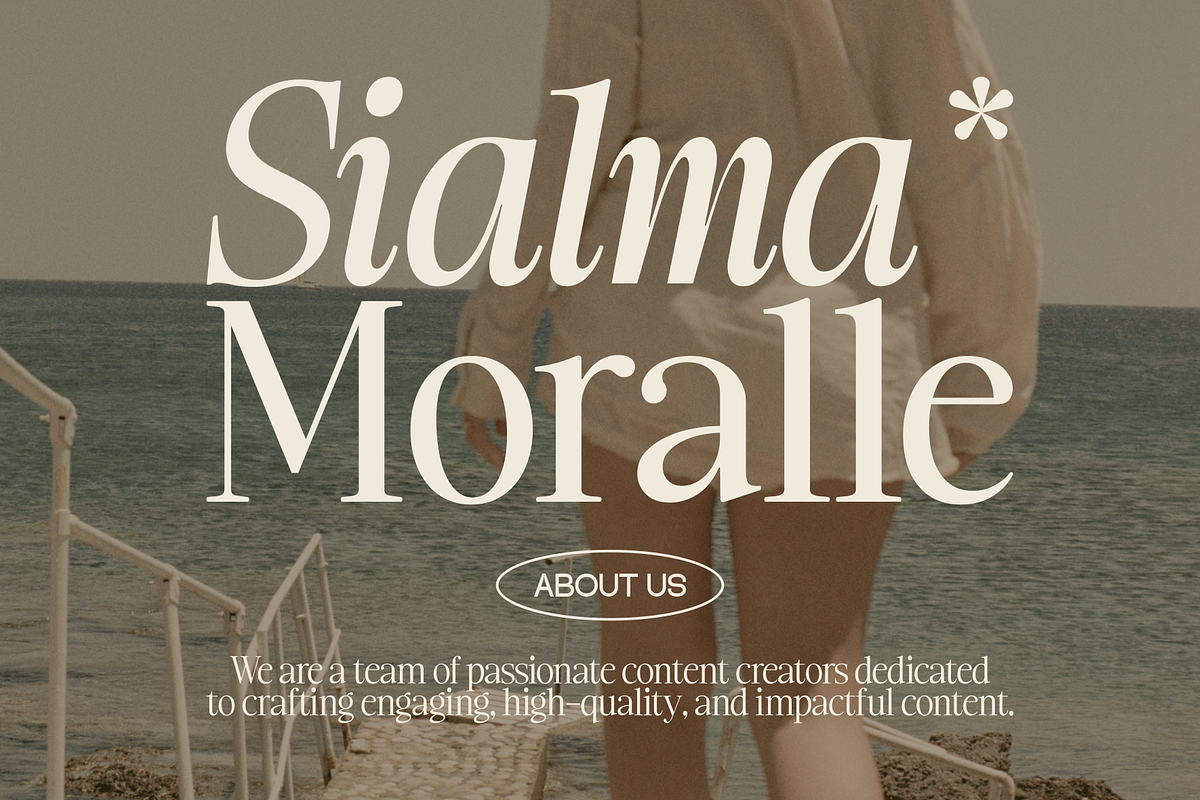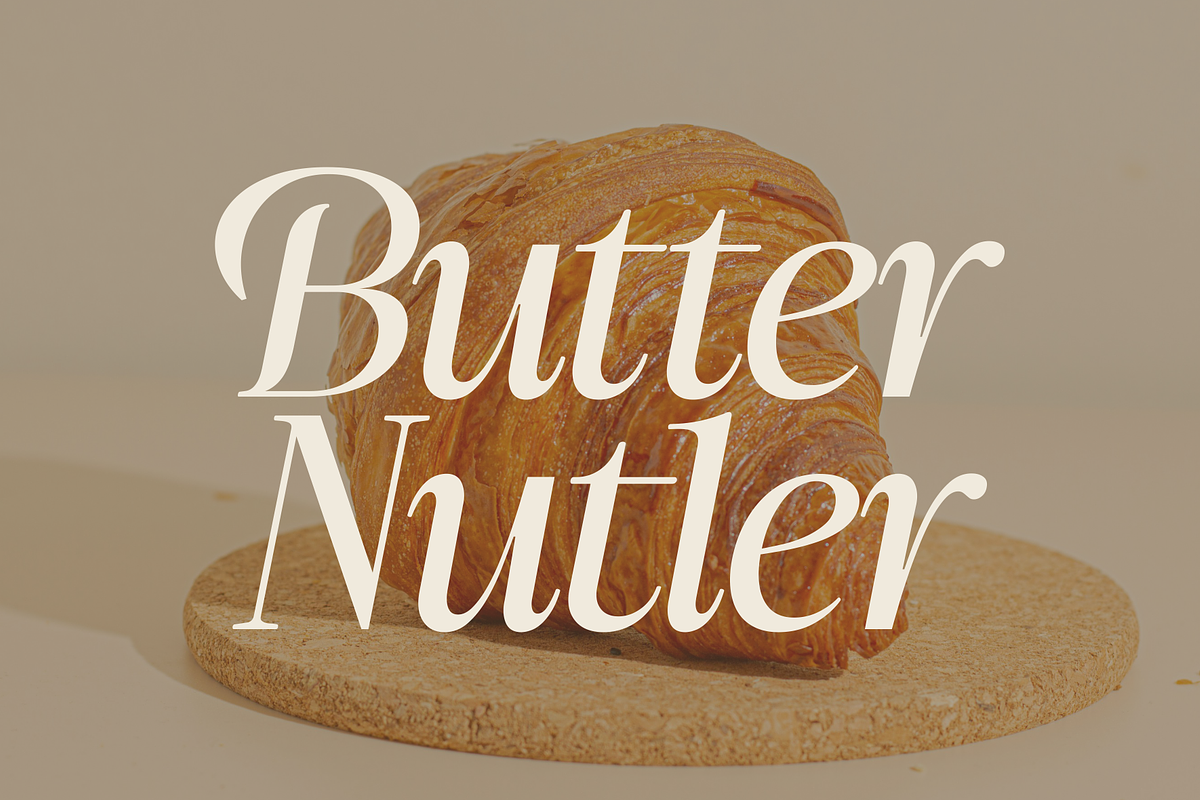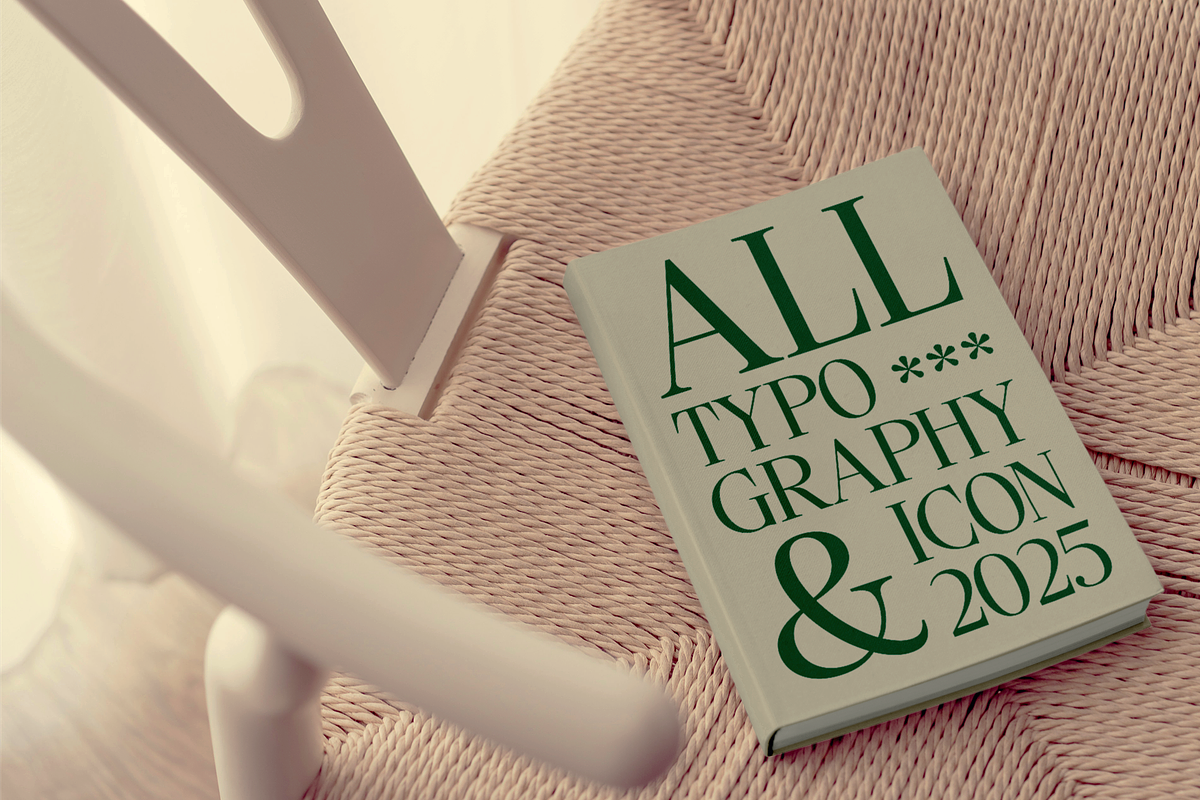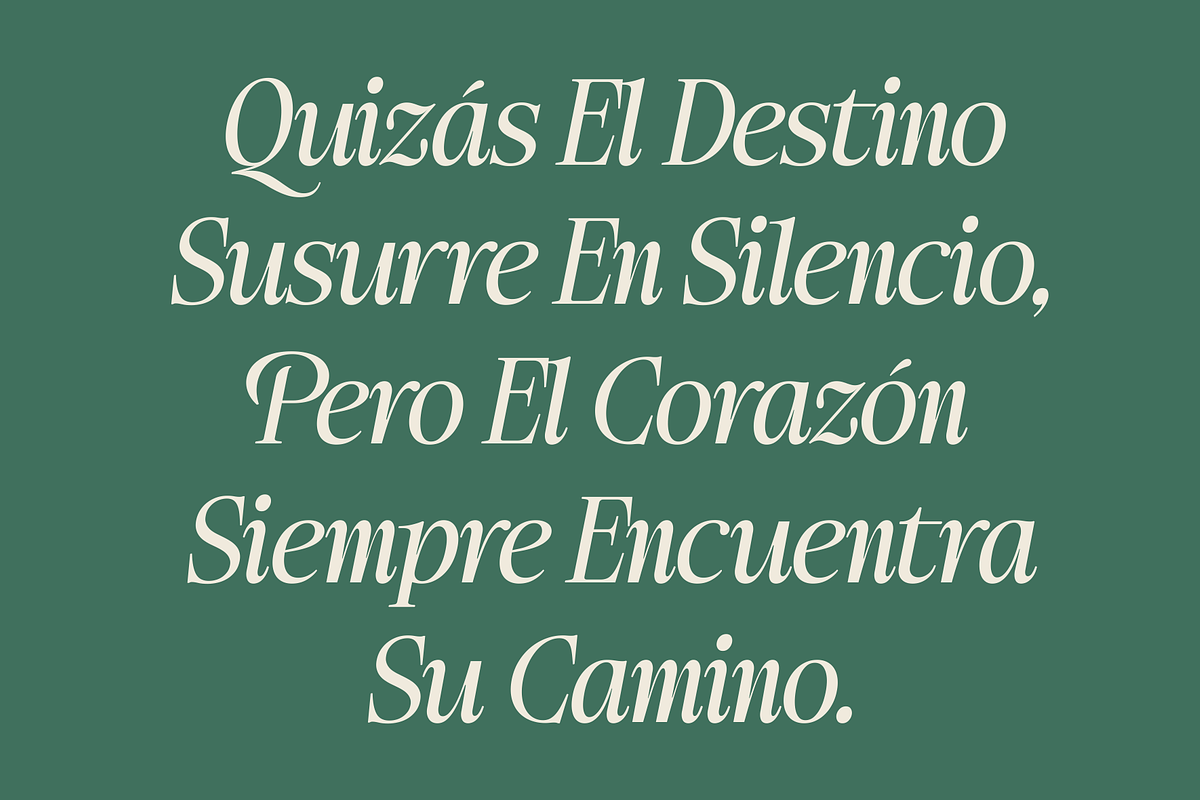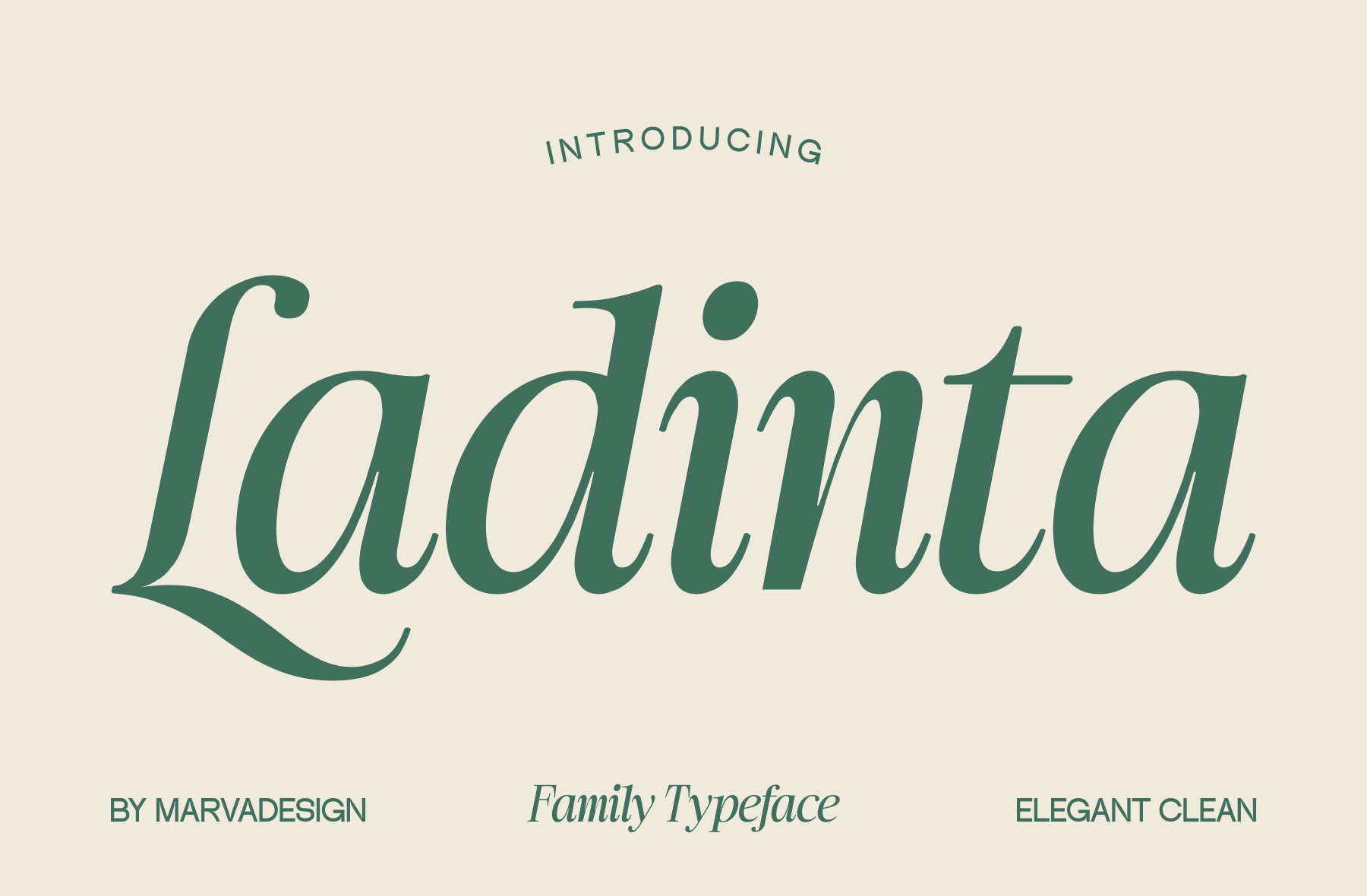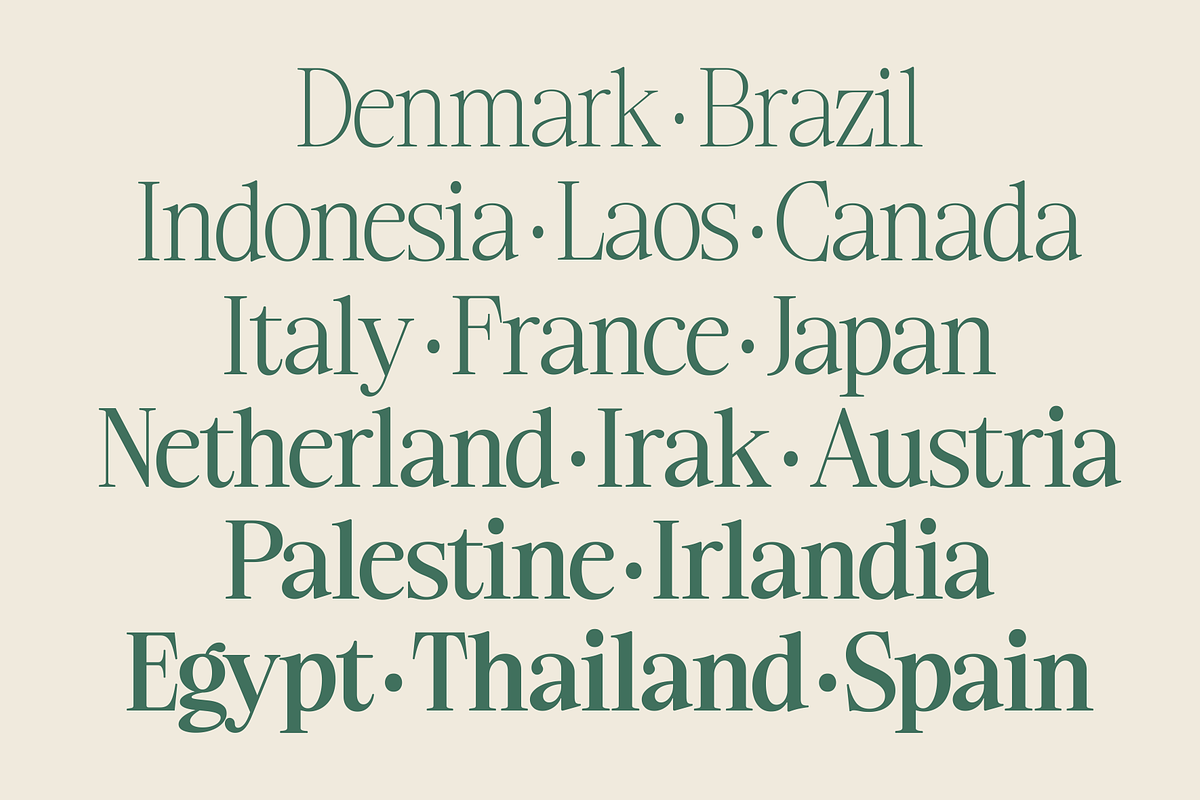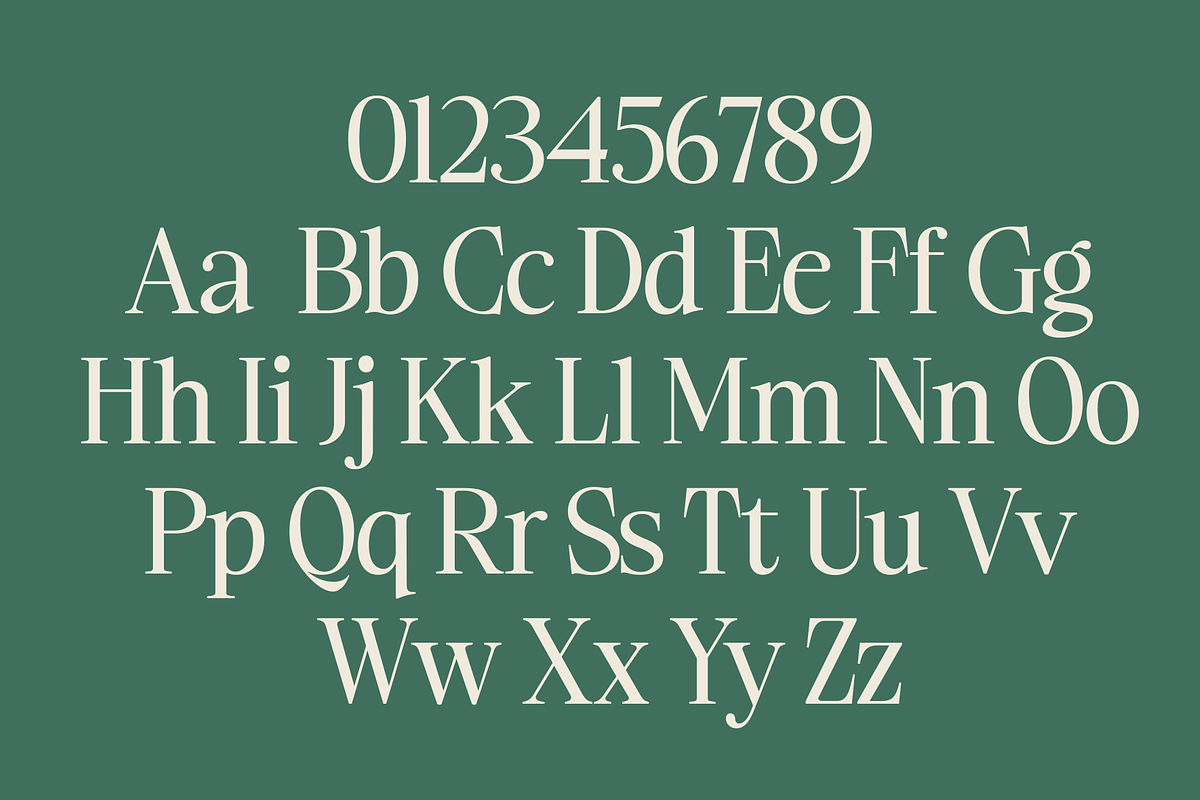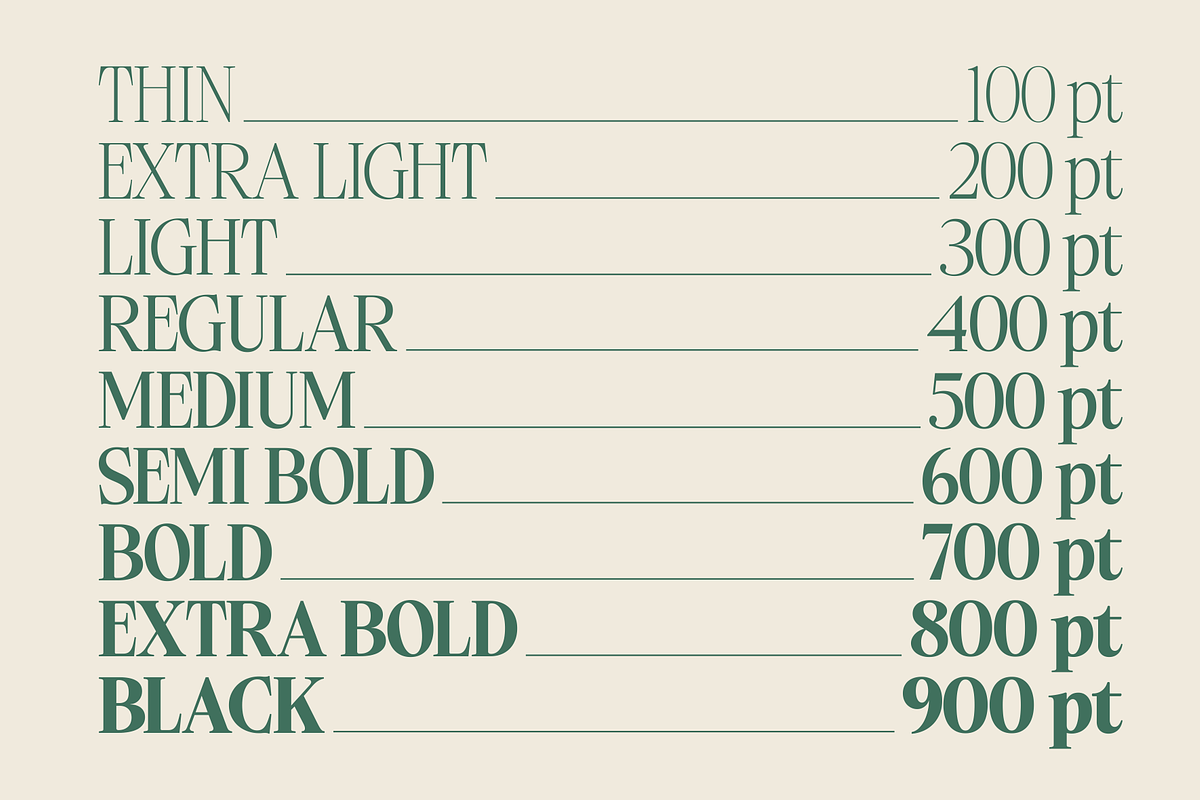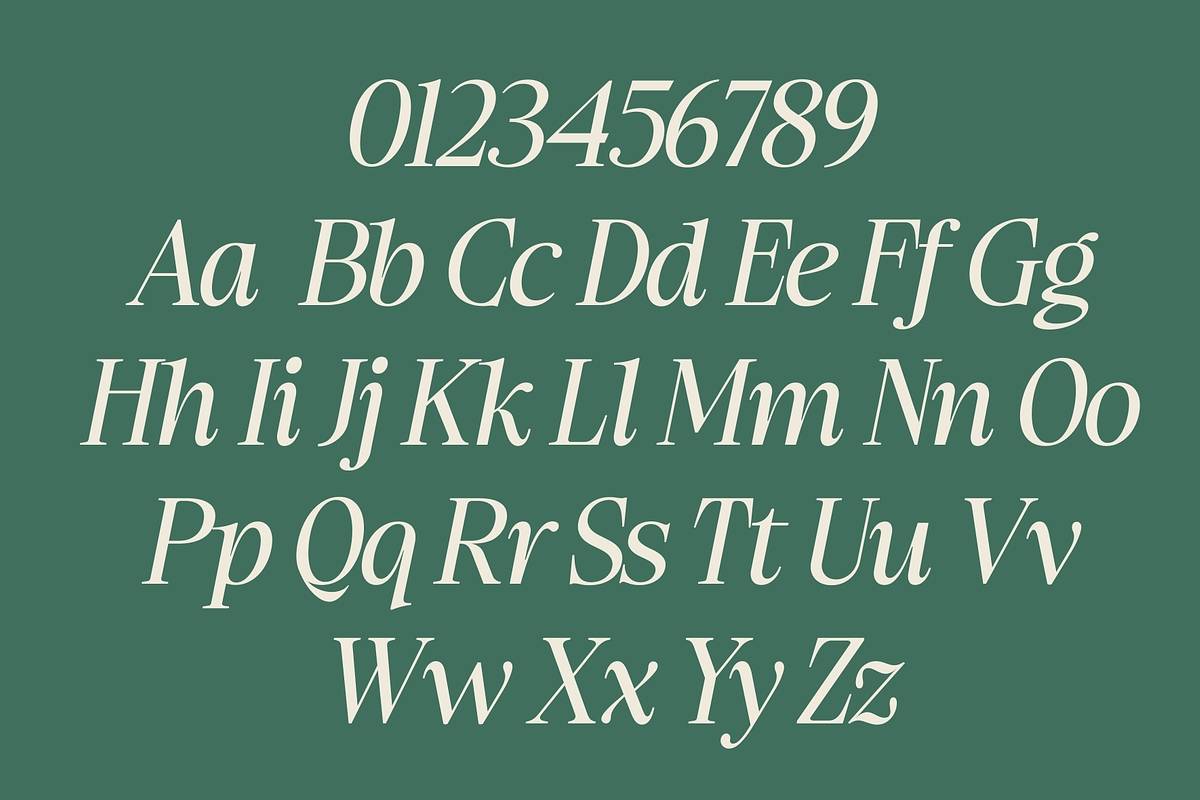
Ladinta - Family Serif Font
Introducing New Family Serif Font The Ladinta typeface is an elegant and sophisticated serif typeface with a distinctive calligraphic touch. The typeface features a smooth, flowing design with stylish curves and subtle details, making it suitable for branding, editorial design, and luxury typography. The typeface comes in a range of weights, from Thin to Black, allowing for versatile application across a range of design projects. Its balanced contrast and graceful serifs contribute to a timeless and classy aesthetic, enhancing readability while maintaining an elegant feel. Ladinta embodies a classic yet contemporary feel, making it suitable for both formal and creative use.
The styles include
- Thin
- Thin Italic
- ExtraLight
- ExtraLight Italic
- Light
- Light Italic
- Regular Italic
- Medium
- Medium Italic
- SemiBold
- SemiBold Italic
- Bold
- Bold Italic
- Extra Bold
- Extra Bold Italic
- Black
- Black Italic
- Variable